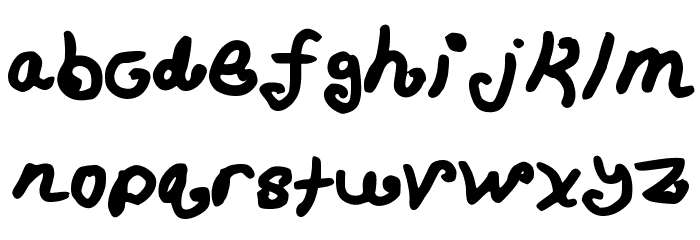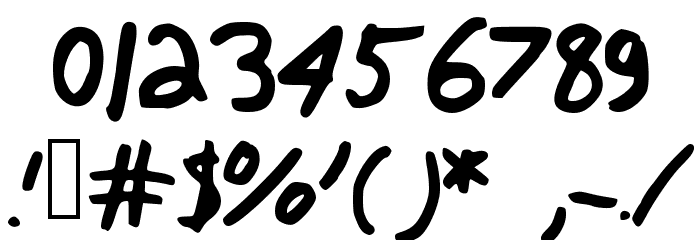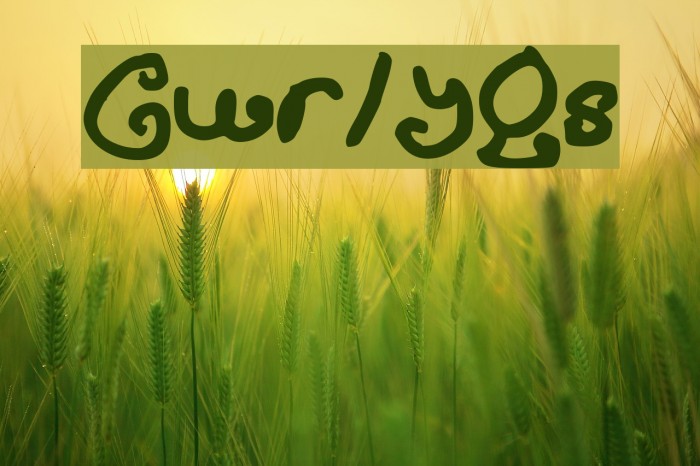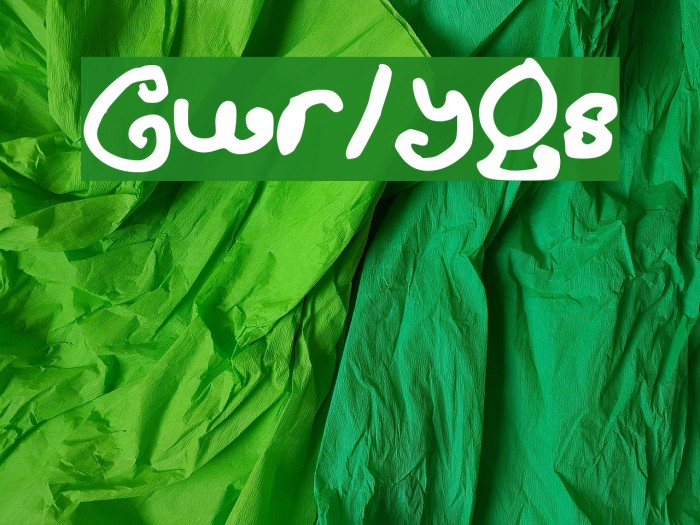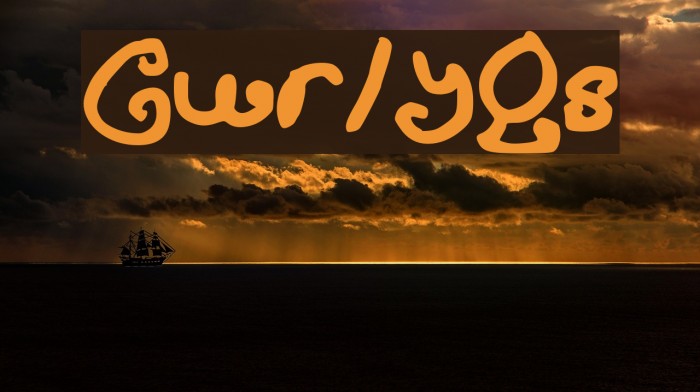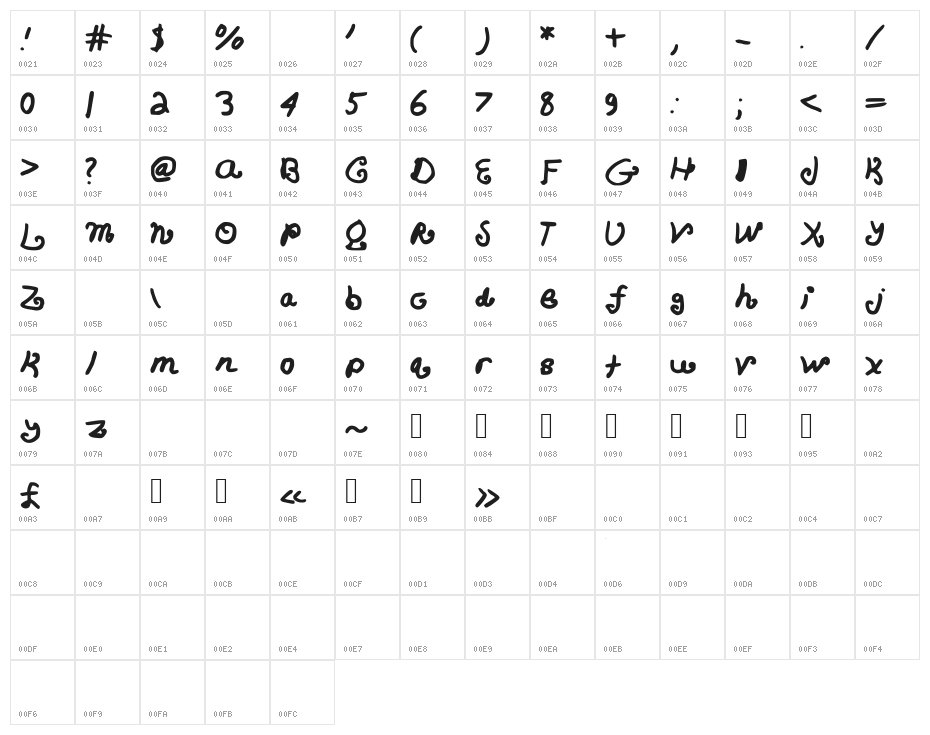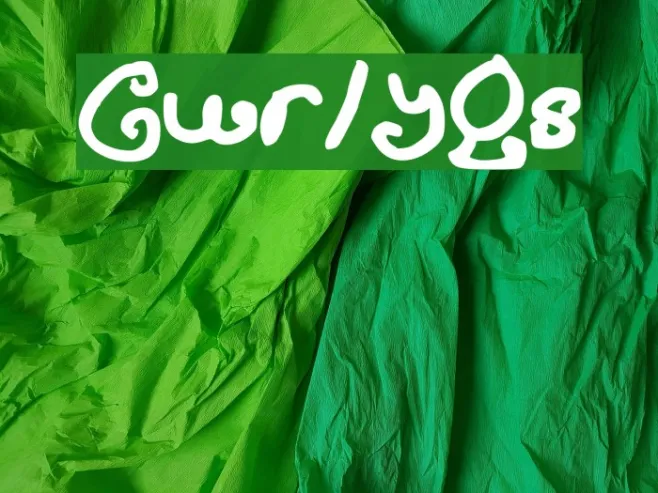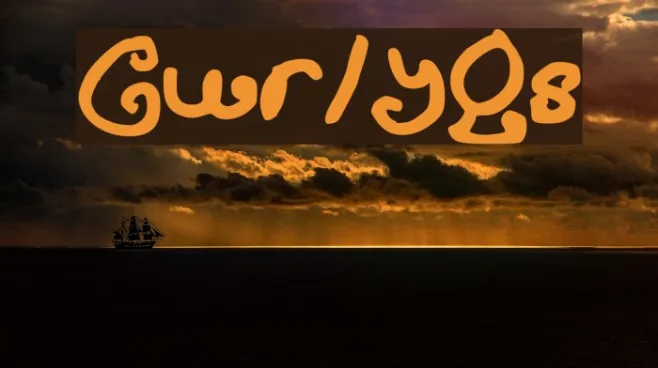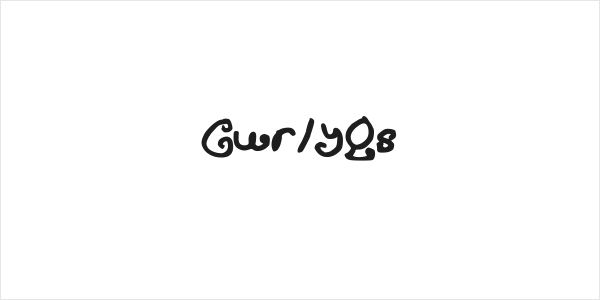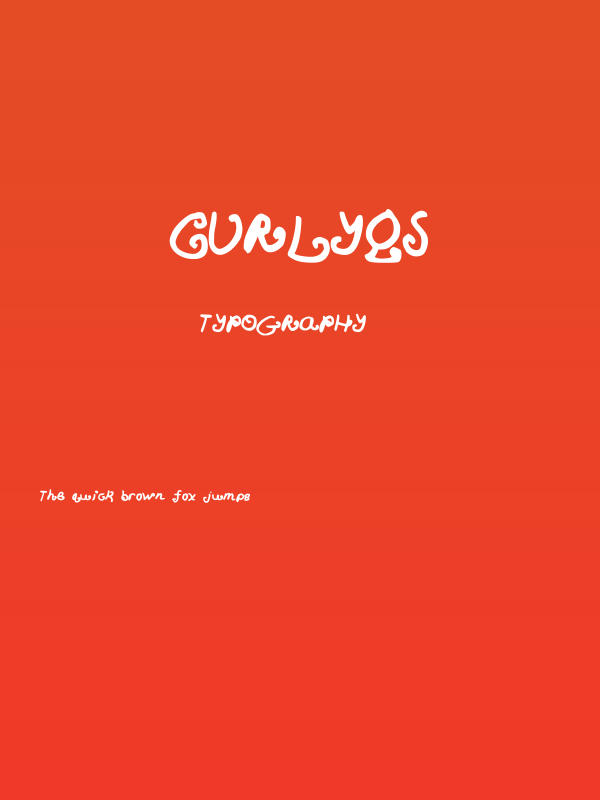
CurlyQs Font
This playful and whimsical font features a unique, curly design that adds a sense of fun and creativity to any project. The characters are bold and rounded, with a consistent stroke width that gives them a cohesive appearance. The uppercase and lowercase letters maintain a lively, flowing style, while the numbers and special characters are equally expressive. This font's distinctive look makes it ideal for projects that require a touch of personality and flair.
A playful, curly font with bold, rounded characters and a whimsical style.
- Proposed Projects: Great for children's books, playful branding, party invitations, and creative posters.
- Overall Style: Whimsical
- Use Case: Headlines, Logos, Creative projects